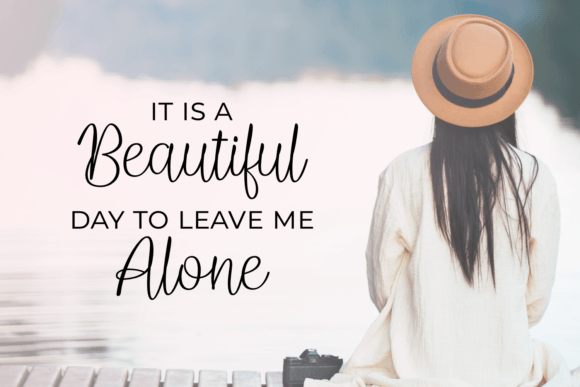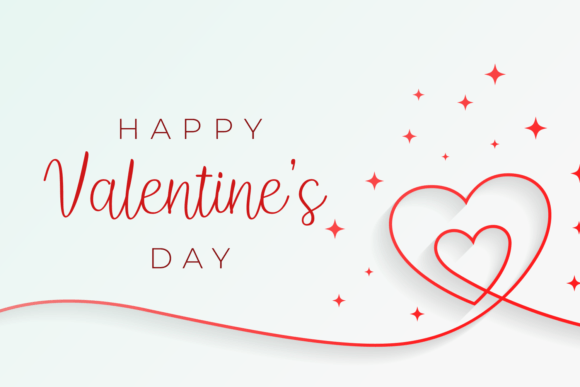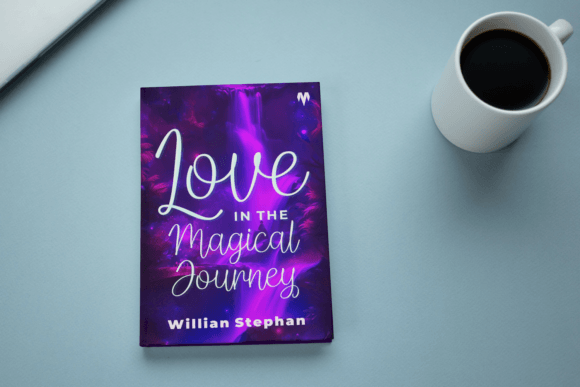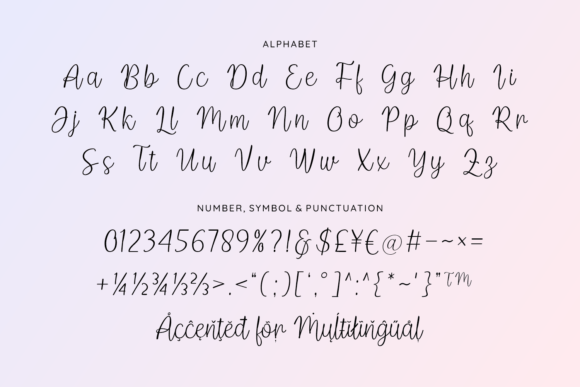
Willy Vita Font
About Willy Vita Font
Willy Vita font is a thin and elegant script typeface. It adds a delicate calligraphic touch to any design. This beautiful font is perfect for designers and creatives who want a refined and graceful style. Its slender strokes and flowing curves create a sophisticated look. This makes it ideal for many types of projects.
Elegant and Delicate Script
The thin lines of Willy Vita font give it an airy and light feel. Because of this, it works well for designs that need subtlety and elegance. For example, you can use it for wedding invitations, logos, inspirational quotes, or greeting cards. This font brings a timeless charm that enhances your work without overpowering it.
Versatile Uses for Creatives
Willy Vita font is very versatile. It fits a wide range of design needs. You can use it for branding projects that require a soft yet professional style. Also, it is great for personal stationery that feels elegant. Moreover, its delicate script works well in social media graphics, posters, and other projects. It adds a sophisticated handwritten flair wherever you use it.
PUA Encoded for Ease of Use
One key feature of Willy Vita font is that it is PUA encoded. This means you can access all its special glyphs, swashes, and alternate characters easily. You don’t need special design software for this. Thanks to this feature, customizing your typography is simple and fun. It lets you add unique touches and flourishes to your text.
Why Choose Willy Vita Font?
Choosing Willy Vita font means picking a script typeface that balances elegance and usability. Its fine lines and smooth flow suit both personal and professional projects. This font elevates your designs with a delicate handwritten style. It feels both classic and fresh at the same time.
Enhance Your Designs with Willy Vita
Add Willy Vita font to your design collection and enjoy a sophisticated script. It brings beauty and grace to every project. From elegant invitations to striking logos, Willy Vita offers a versatile and charming solution. It fits all your creative typography needs perfectly.